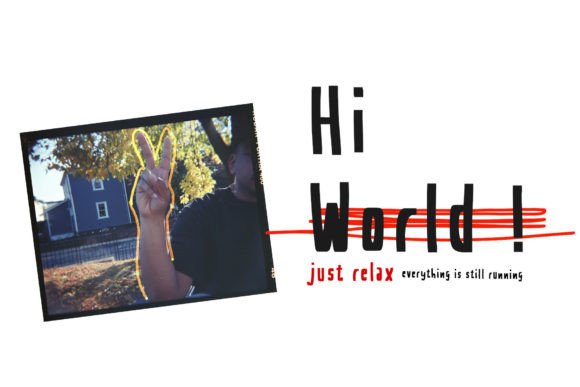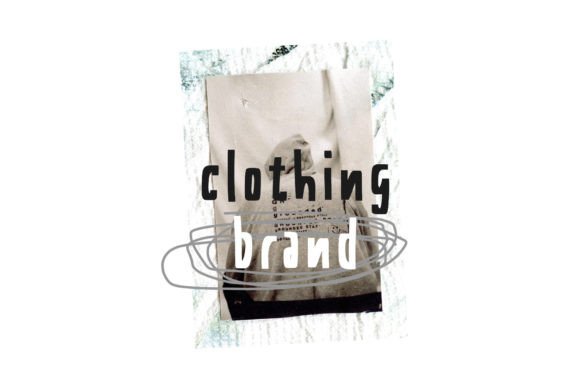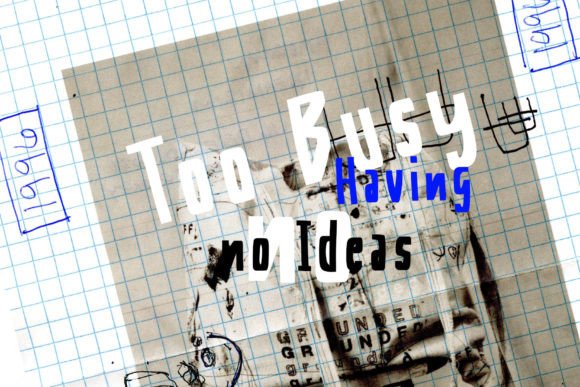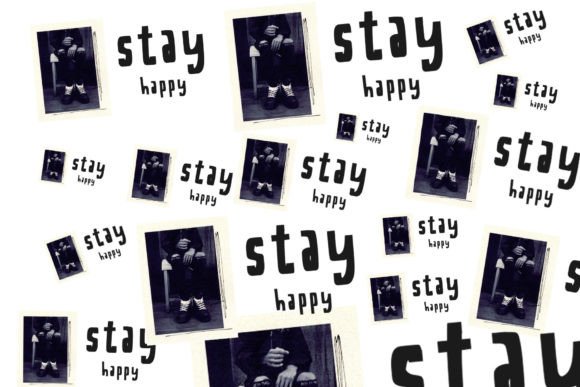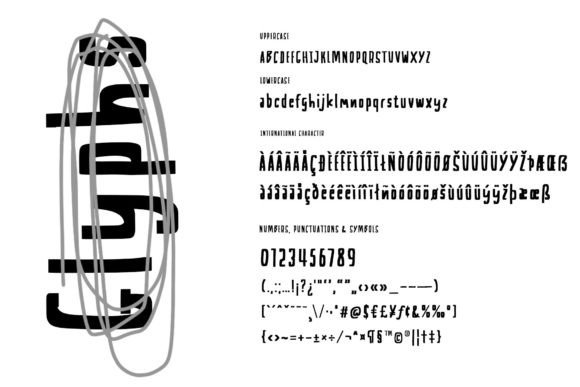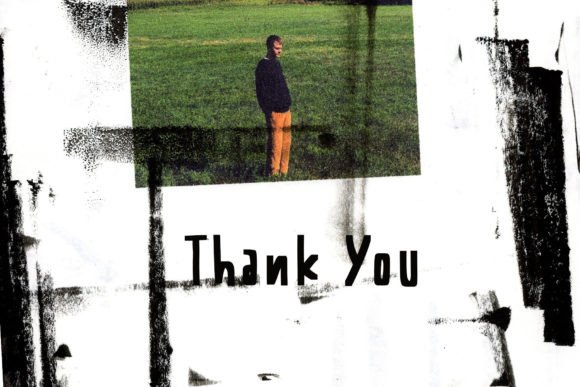
Discover the Charm of Almost Strap Font: A Vintage-Inspired Handwriting Font
Are you looking for a font that can add a touch of nostalgia and warmth to your design projects? Look no further than Almost Strap, a beautiful handwriting font inspired by the classic marker pen style. In this article, we’ll explore the history behind the creation of Almost Strap, its unique features, and how you can use it to elevate your designs.
The Story Behind Almost Strap
The Almost Strap font was born out of a passion for unique and captivating handwriting art. Our team was inspired by the creative and cheerful touch that comes with using markers on paper, giving a special accent to each letter stroke. We wanted to bring back the charm and aesthetics of handwritings that embody warmth and nostalgic memories. With Almost Strap, we aimed to create a harmonious blend of vintage vibes and modern freshness.
What Makes Almost Strap Special?
Almost Strap is a handwriting font that provides a vintage impression with a touch of freshness. Every letter and character in this font was designed with love and attention, combining classic style with a refreshing twist to make it impressive. The font’s marker pen style gives it a distinctive look that’s perfect for designs that require a personal touch.
Key Features of Almost Strap
- Vintage-inspired design: Almost Strap’s design is inspired by classic marker pen style, giving it a nostalgic feel.
- Handwriting-style font: The font has a natural, handwriting-like quality that adds warmth and personality to your designs.
- Modern twist: Almost Strap’s modern freshness ensures that your designs stay current and vibrant.
- High-quality design: Every letter and character was designed with attention to detail, ensuring a high-quality font that’s perfect for professional designs.
Using Almost Strap in Your Design Projects
Almost Strap is suitable for various design projects, such as:
- Greeting cards: Add a personal touch to your greeting cards with Almost Strap’s unique and captivating design.
- Invitations: Create beautiful and eye-catching invitations that set the tone for any event.
- Posters: Use Almost Strap to create stunning posters that grab attention and leave a lasting impression.
- Merchandise: Add a touch of personality to your merchandise, such as t-shirts, mugs, and more.
Why Choose Almost Strap?
With so many fonts available, why choose Almost Strap? Here are just a few reasons:
- Unique design: Almost Strap’s vintage-inspired design sets it apart from other fonts.
- Versatility: The font is suitable for a wide range of design projects, from greeting cards to posters.
- High-quality: The font is designed with attention to detail, ensuring a high-quality design that will elevate your projects.
Almost Strap is a beautiful handwriting font that’s perfect for designers and crafters looking to add a touch of nostalgia and warmth to their design projects. With its unique features, versatility, and high-quality design, Almost Strap is an excellent choice for anyone looking to create captivating and memorable designs. Try Almost Strap today and discover the charm of this vintage-inspired font!